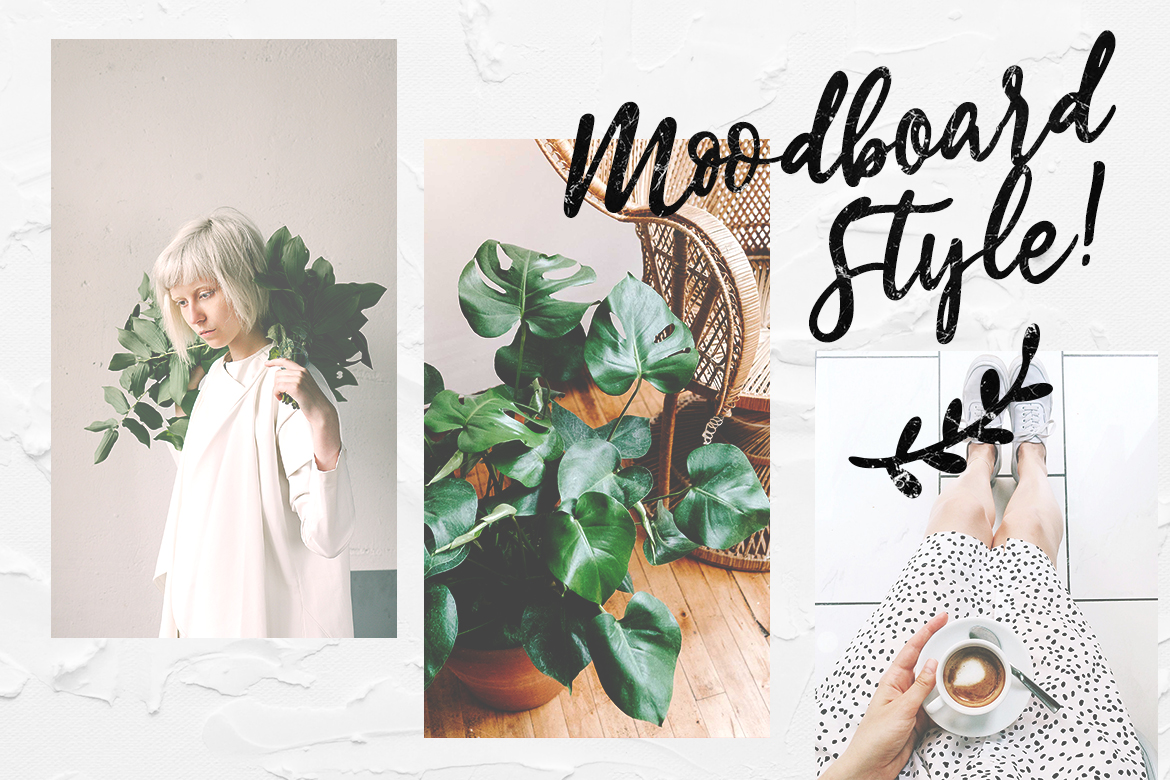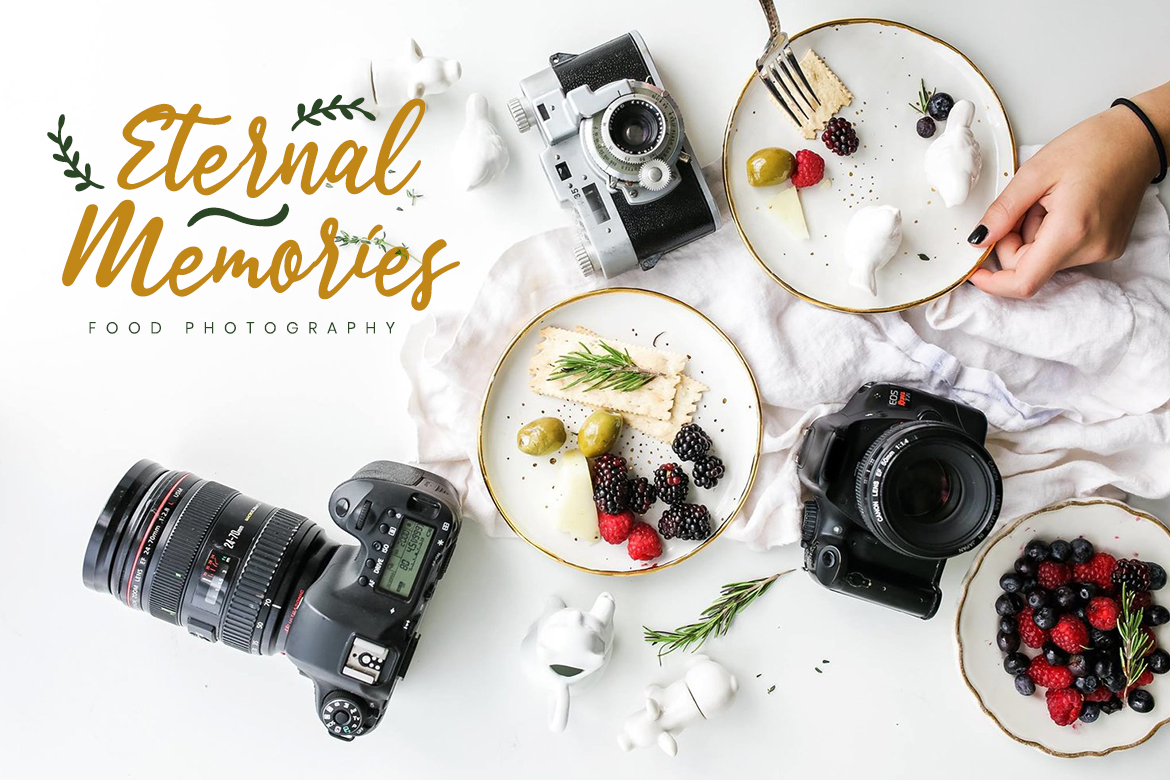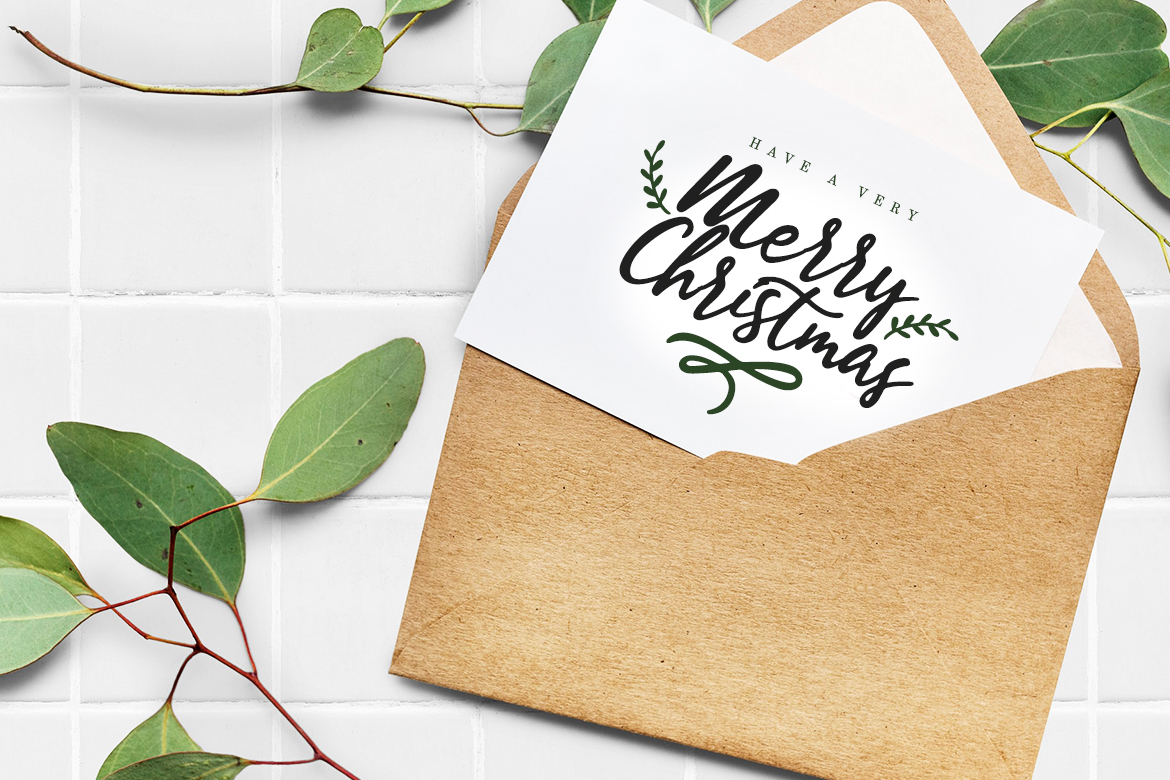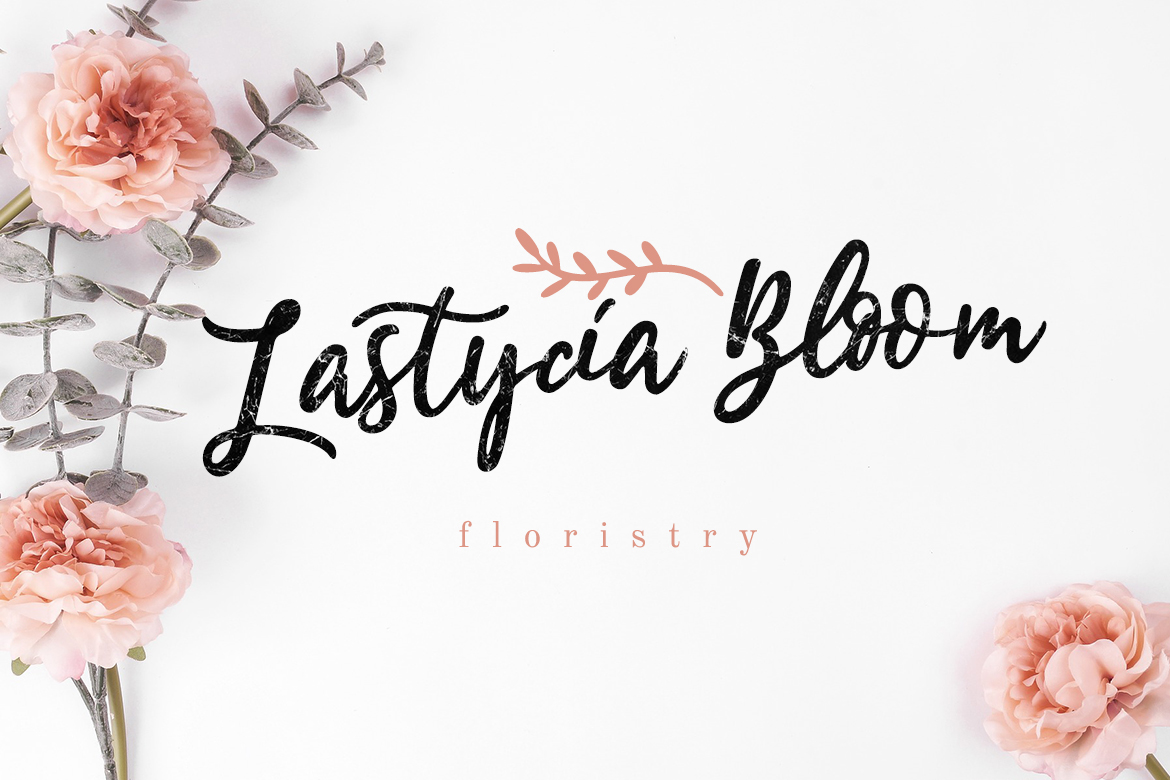
Estylle Madison Free Font
Estylle Madison Free Font is classy, elegant, and super stylish modern calligraphy with natural handwritten movement.
Estylle Madison Free Font is perfect for branding projects, logo, wedding designs, social media posts, advertisements, product packaging, product designs, label, photography, watermark, invitation, stationery, and any projects that need handwriting taste. This free typeface was designed by talented Creatype Studio. If you like it don’t forget to check out the full version.